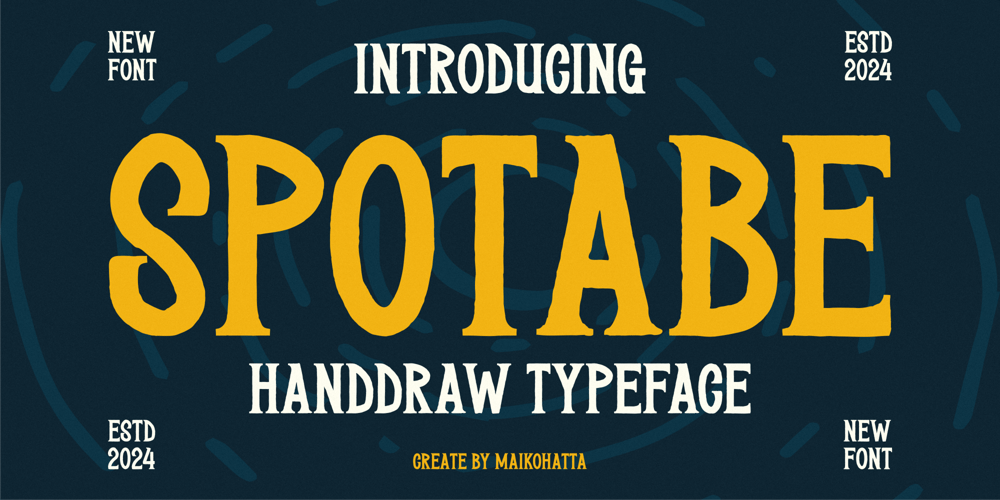
Spotable Font Family was designed by Gilang Ternadho and published by Maikohatta. Spotable contains 1 styles and family package options. Introducing our new product Spotabe – Handdraw TypefaceThis font is a typographic masterpiece that harmonizes elegance and sharpness. Every letter within this font is meticulously designed, with a keen focus on balanced proportions and impeccable alignment. This font is well-suited for a variety of contexts, such as print design, promotional materials, or magazine layouts.